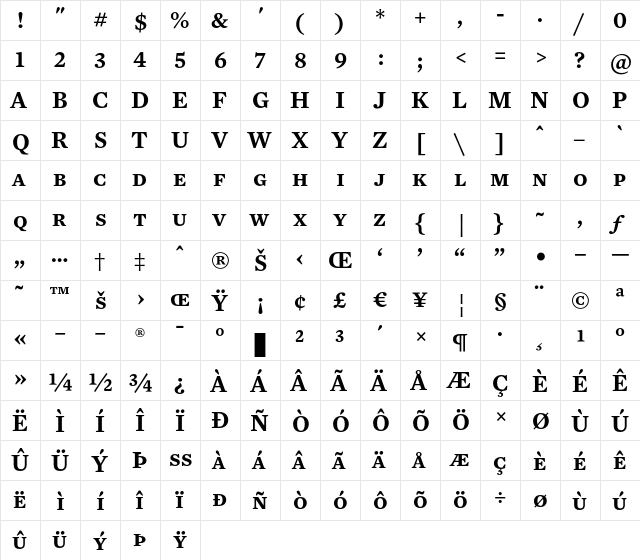
Mercury Text G3 Semibold SC
Design Context for Mercury Text G3 Typeface
Mercury Text G3 takes a measured approach to typography — its balanced proportions and neutral character make it a reliable workhorse for both digital and print work. Its bold stroke weight gives it real presence on the page.